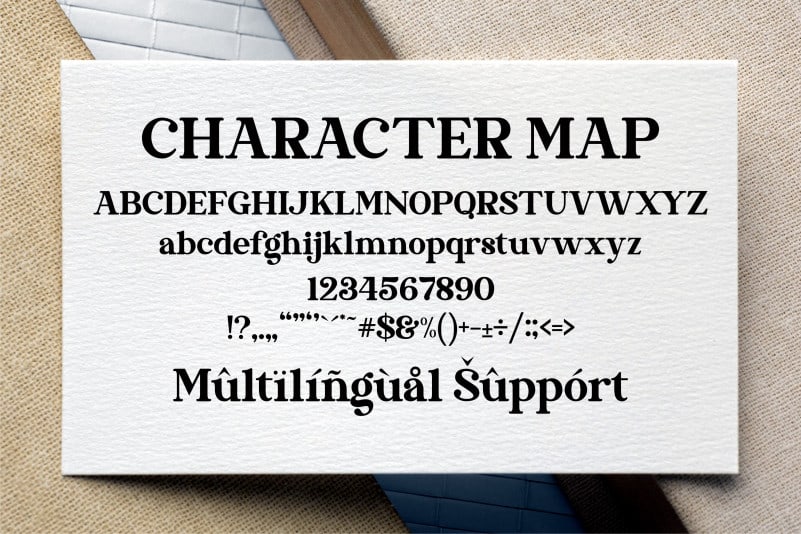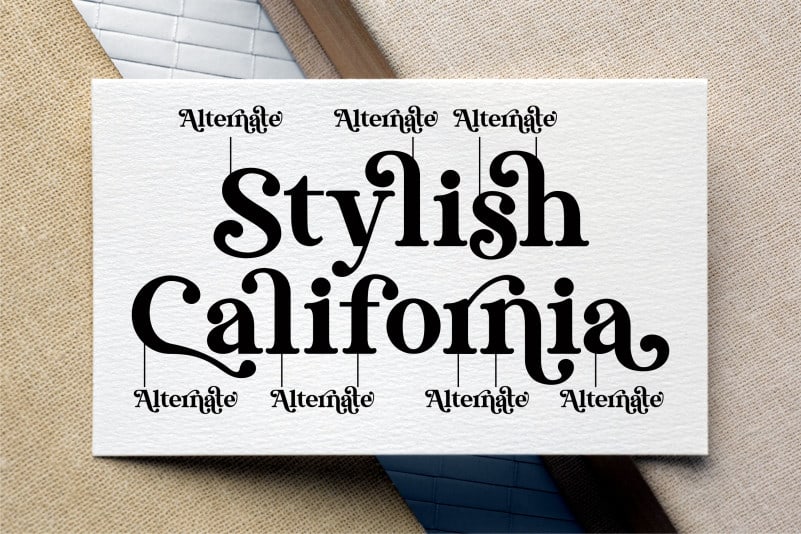
Stylish California Font
Stylish California Font – Stylish Serif Font, from Letterena, is a Luxury serif font, suitable for any projects such as: logos, branding projects, homeware designs, product packaging, mugs, quotes, posters, shopping bags, t-shirts, book covers, name card, invitation cards, greeting cards, label, photography, watermark, special events, and all your other luxury and beautiful projects that need a Beautiful serif taste.